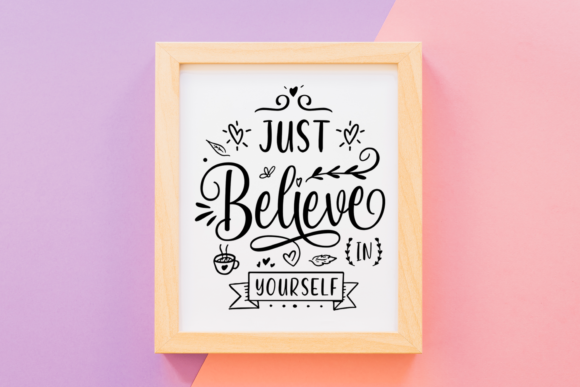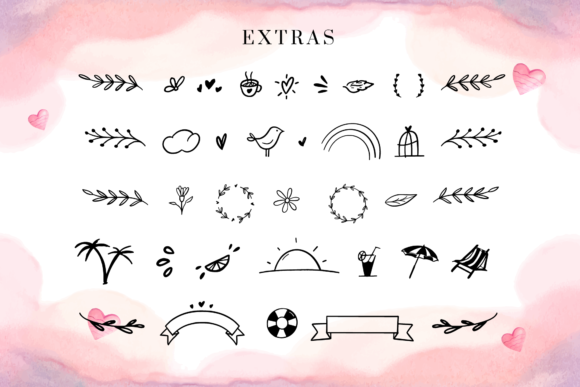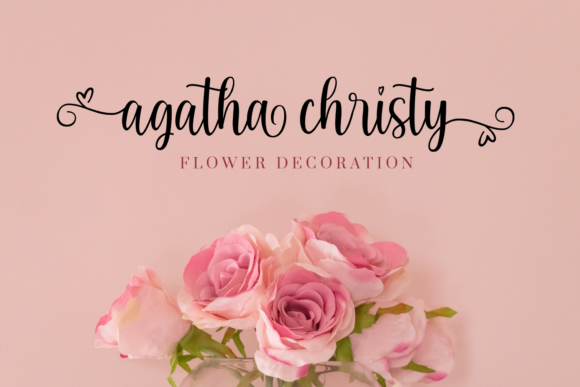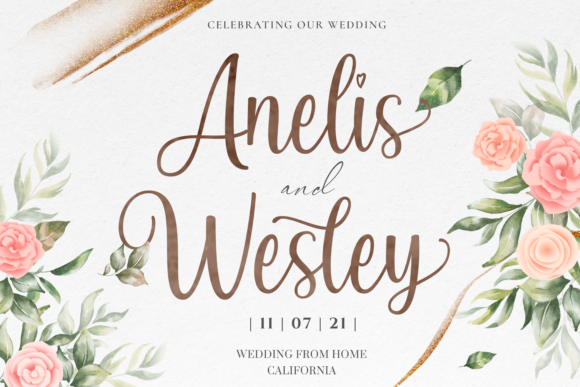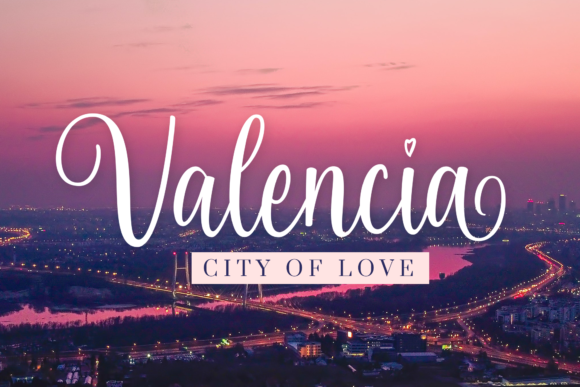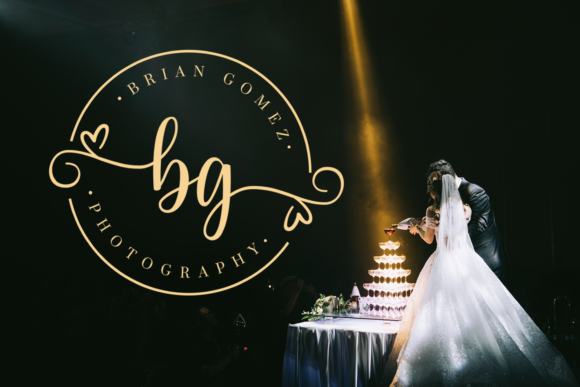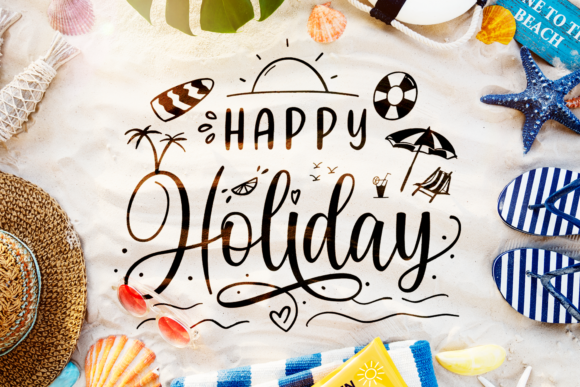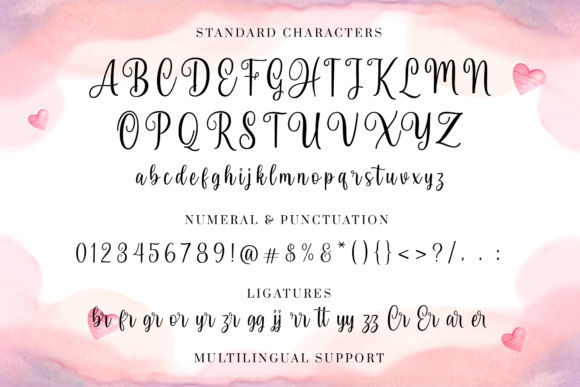
Peaceful Heart Font
About Peaceful Heart Font
Peaceful Heart is a delightful font duo that brings a sense of tranquility and charm to your designs. With its unique style and versatility, it is a perfect choice for various creative projects, such as quotes, invitations, crafts, logos, and more.
The duo consists of two fonts that complement each other beautifully. The first font has a lovely handwritten look with smooth curves and a warm, inviting feel. It’s perfect for adding a personal and heartfelt touch to your designs, making it ideal for quotes, invitations, and crafts.
The second font in the duo comes with extra doodles, adding a playful and whimsical element to your designs. These doodles allow you to create fun combinations and variations, making your designs more engaging and visually appealing.
Whether you’re creating a logo for a brand that embraces a peaceful and heartwarming vibe or designing beautiful invitations for a special event, Peaceful Heart has got you covered.
For crafting projects, the extra doodles can be used to create unique patterns and embellishments, adding a touch of creativity and personality to your crafts.
In summary, Peaceful Heart is a font duo that radiates charm and tranquility. It’s the perfect choice for various projects, providing a warm and heartfelt touch to your designs. With its additional doodles and PUA encoding, you have the freedom to create beautiful and personalized artwork that will captivate and inspire.